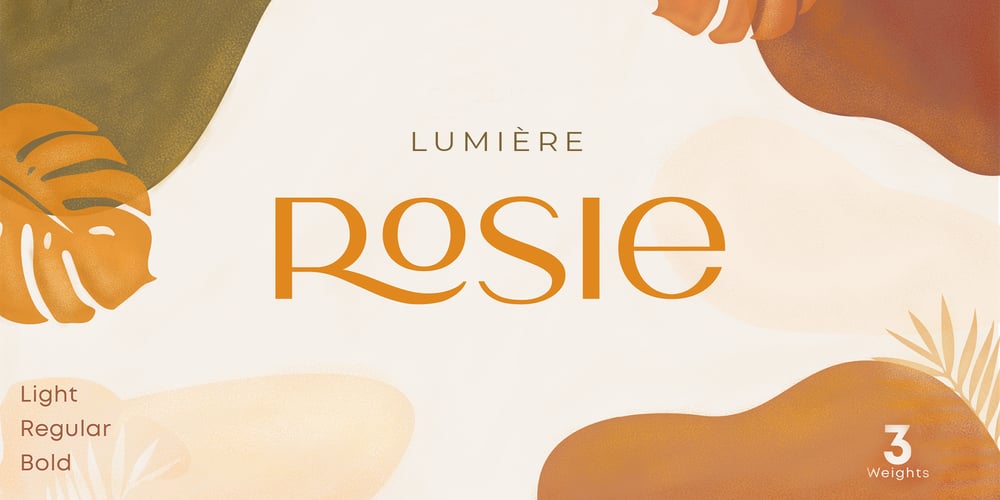
Lumiere Rosie
Lumiere Rosie Font Family was designed by Kurt Harahap and published by Kaligra.co. Lumiere Rosie contains 3 styles and family package options. Introducing Lumiere Rosie – A Gorgeous modern sans serif with ton of stylistic alternates to choose. Its bold clean and simple. Works wonderfully on its own for logos, headlines, posters, packaging and many more! And with Three different weights to choose, your option to create more unique and versatile design is a lot wider. Have fun and create more. Your Imagination only your limit!